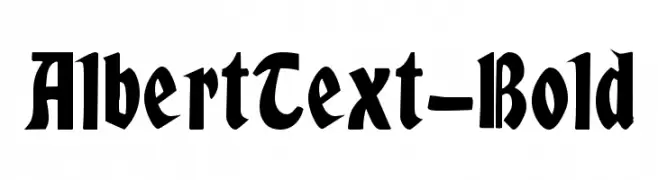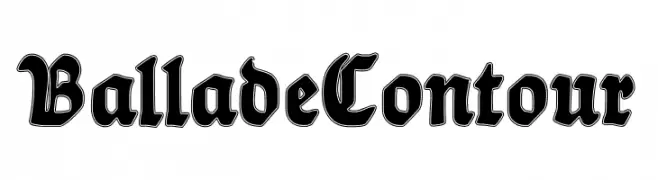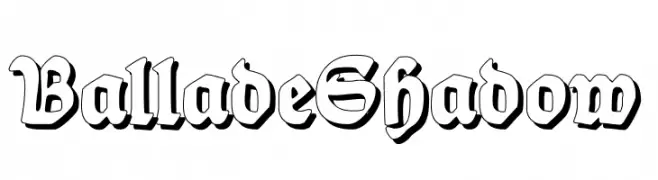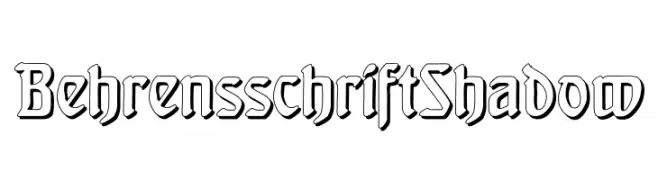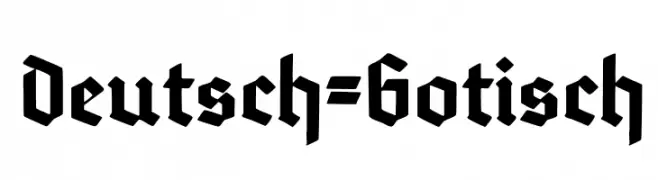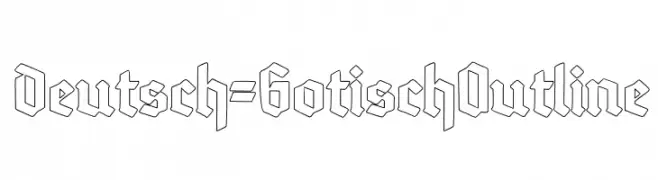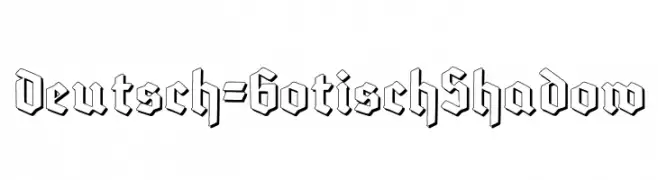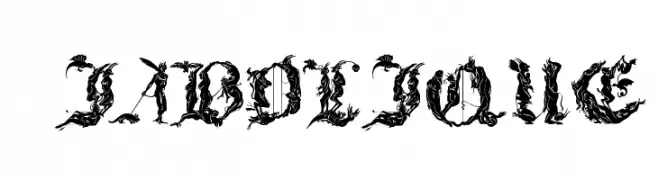
A bold, blackletter-inspired font with sharp, angular lines and a gothic feel.
A bold, blackletter font with a contour effect, offering a dramatic, Gothic style.
A bold, decorative font with a shadow effect and blackletter-inspired design.
A bold, shadowed font with geometric forms and a modern twist.
A bold, Gothic-style font with intricate, angular detailing.
A bold Gothic font with sharp, angular lines and intricate detailing.
An outlined Gothic-style font with sharp angles and a geometric form.
A bold Gothic font with a shadow effect, offering a dramatic and historical style.
An ornate, gothic-style font with intricate flourishes and high contrast.